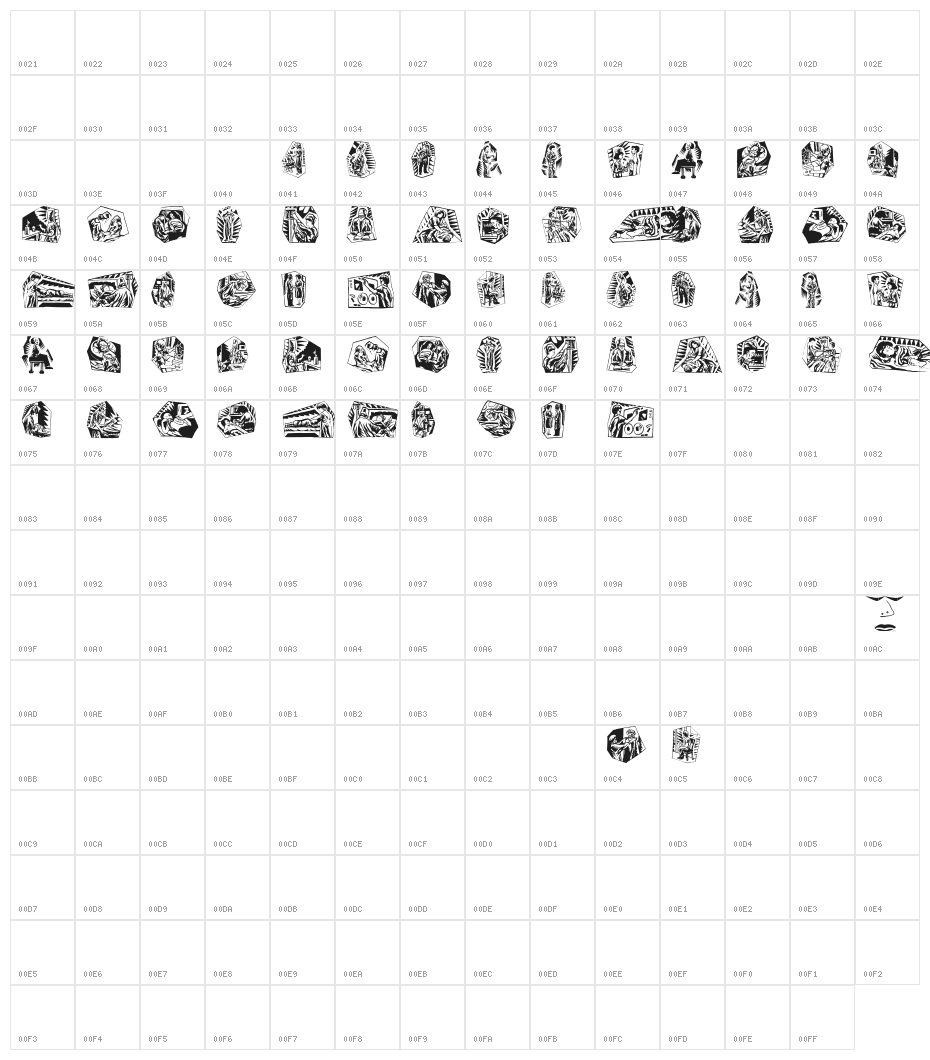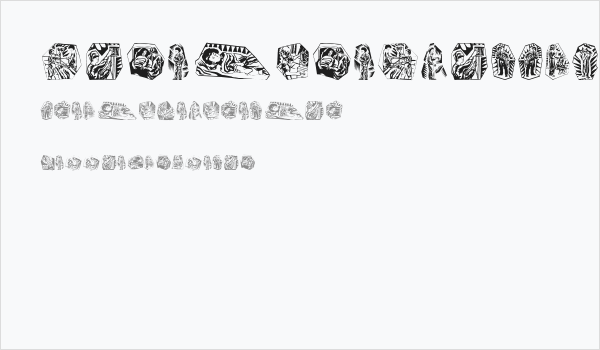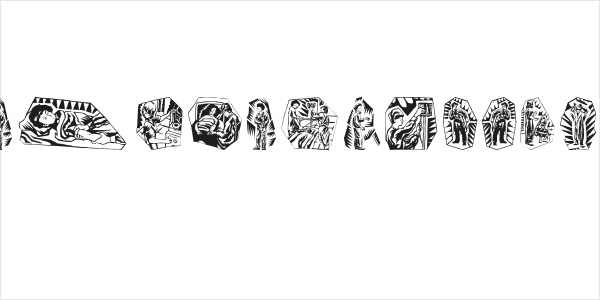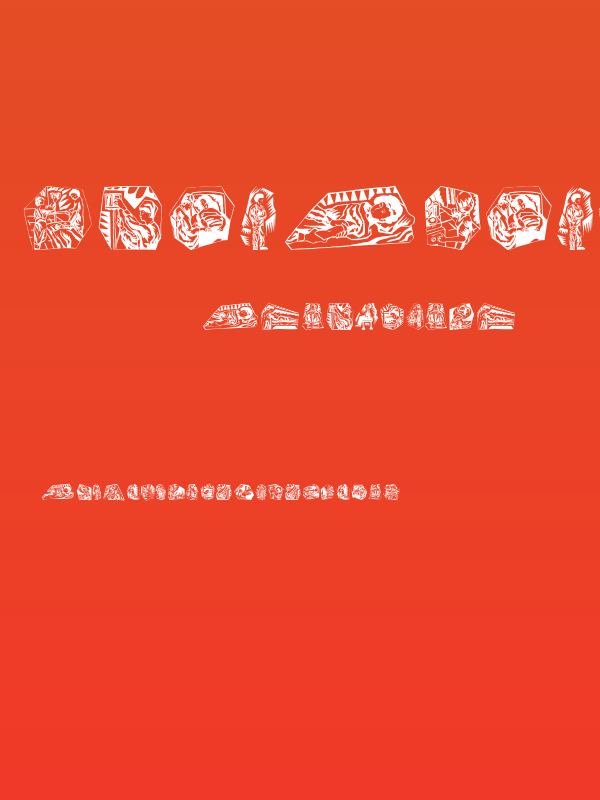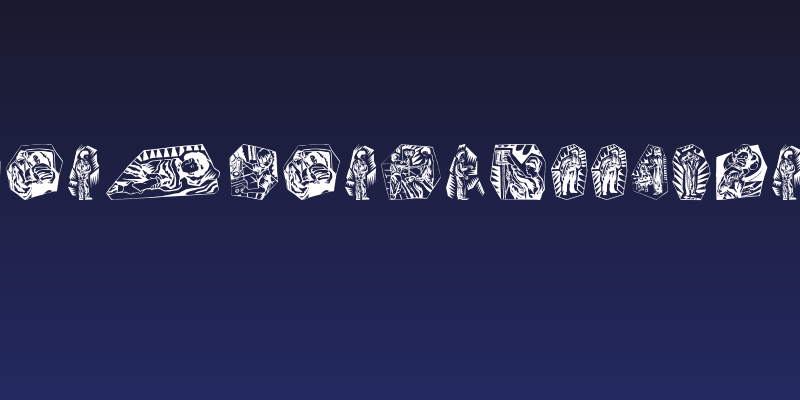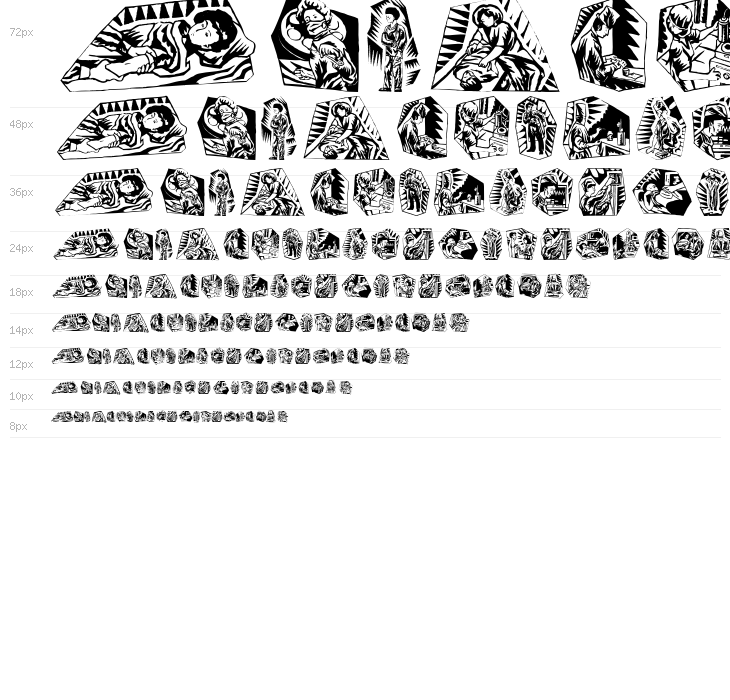
SometimesDocCanHelp Font
SometimesDocCanHelp Description
This font is a unique and artistic representation where each character is embedded within a detailed illustration. The design features intricate black and white sketches that give each letter a distinct personality, making it highly decorative. The characters are enclosed in irregular, angular shapes that add to the overall dynamic and expressive style. This font is not meant for traditional readability but rather for artistic and thematic expression, making it suitable for creative projects that require a bold visual statement.
| Use Case | Logos, Posters, Artistic Projects |
| Proposed Projects | Ideal for art projects, posters, album covers, or any creative work that benefits from a bold, illustrative style. |